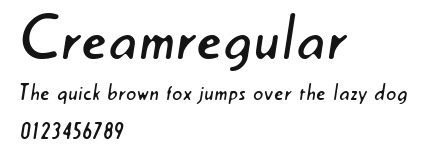
Creamregular Preview
• Font Name: Creamregular
• Full Font Name: Creamregular
• PostScript Name: Creamregular
• Character Count: 244
About Creamregular.ttf
Creamregular.ttf is a modern, elegant sans-serif font designed for ultimate readability and visual harmony. Perfect for branding, headlines, web design, and print materials.